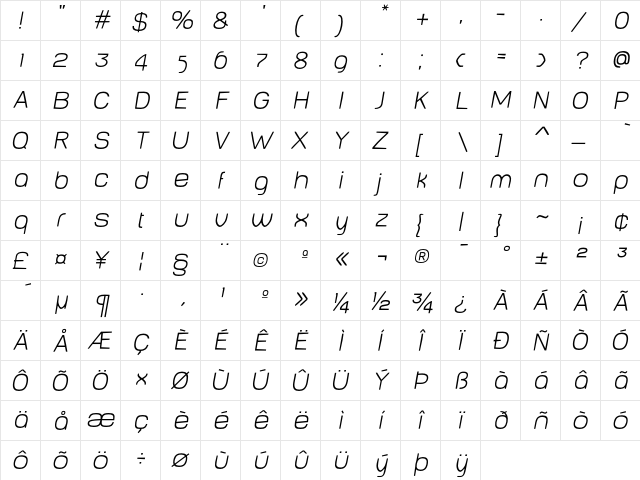
Baby MineThinOblique Font Preview
Baby MineThinOblique
Design Context for Baby Typeface
Baby is a composed and adaptable typeface that performs quietly and consistently across a wide range of design contexts. Its italic angle brings a sense of urgency and motion to the letterforms. Its slender proportions lend an understated elegance to any composition.
Pro Tip: Try Baby for annotation and caption copy alongside an upright companion — the contrast in angle creates a dynamic but ordered typographic system.